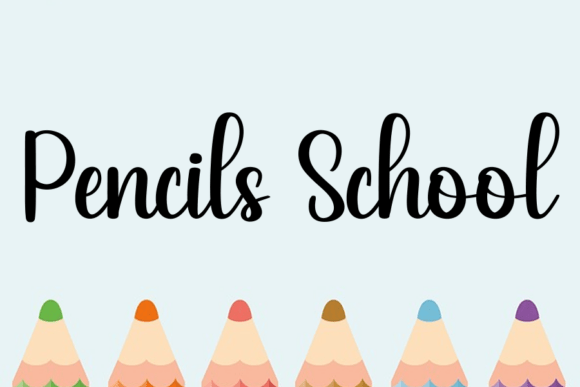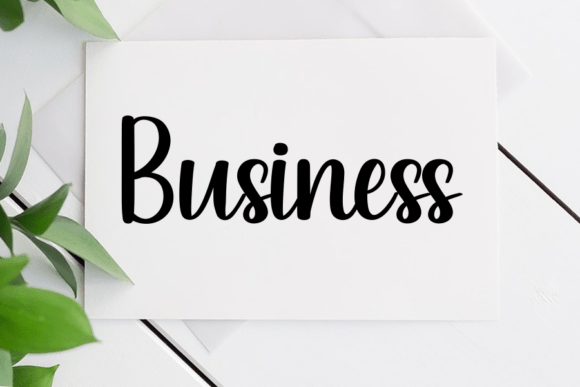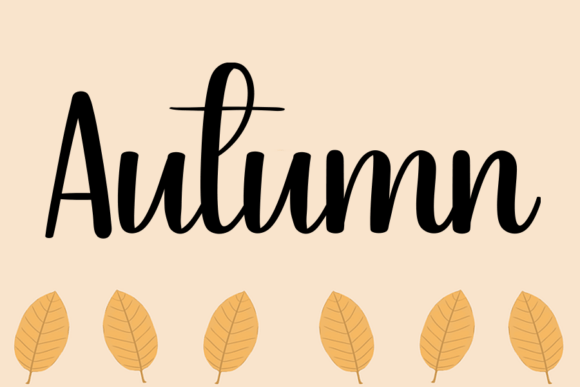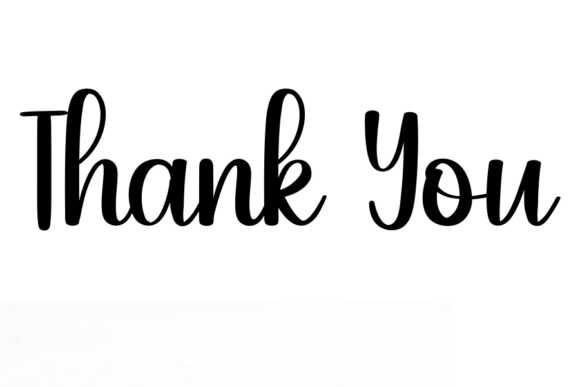
Introducing Badminton Font: The Sweet and Cursive Handwritten Font for Your Design Needs
Are you looking for a font that can add a touch of elegance and whimsy to your designs? Look no further than Badminton Font, a beautiful and cursive handwritten font that is perfect for a variety of design projects. With its gentle and sweet appearance, Badminton Font is sure to make your designs stand out and leave a lasting impression.
What Makes Badminton Font Special?
Badminton Font is a unique and versatile font that can be used for a wide range of design ideas. Its cursive and handwritten style gives it a personal and human touch, making it perfect for designs that require a touch of warmth and personality. Whether you’re working on a branding project, a wedding invitation, or a marketing promotion, Badminton Font is sure to add a joyful and romantic touch to your design.
Badminton Font is a versatile font that can be used for a variety of design projects, including:
- Branding: Use Badminton Font to create a unique and memorable brand identity that stands out from the crowd.
- Logo Design: Create a beautiful and elegant logo that showcases your brand’s personality and style.
- Wedding Things: Add a touch of romance and whimsy to your wedding invitations, stationery, and other wedding-related designs.
- Greeting Cards: Create beautiful and heartfelt greeting cards that are perfect for any occasion.
- Fashion: Use Badminton Font to create stunning fashion designs, lookbooks, and marketing promotions.
Why Choose Badminton Font?
There are many reasons why Badminton Font is a great choice for your design needs. Here are just a few:
- Elegant and Casual: Badminton Font has a unique and elegant style that is both sophisticated and casual.
- Easy to Read: The font is clear and easy to read, making it perfect for designs that require a lot of text.
- Highly Versatile: Badminton Font can be used for a wide range of design projects, from branding and logos to wedding invitations and greeting cards.
- Unique and Creative: With its cursive and handwritten style, Badminton Font is sure to add a touch of creativity and originality to your designs.
How to Use Badminton Font in Your Designs
Using Badminton Font in your designs is easy and straightforward. Here are a few tips to get you started:
- Pair it with Other Fonts: Badminton Font looks great when paired with other fonts, such as sans-serif fonts or script fonts.
- Use it for Headings and Titles: Badminton Font is perfect for headings and titles, where its elegant and cursive style can really shine.
- Experiment with Colors: Try using Badminton Font in different colors and combinations to add depth and interest to your designs.
In conclusion, Badminton Font is a beautiful and versatile font that is perfect for a wide range of design projects. With its elegant and cursive style, it’s sure to add a touch of whimsy and romance to your designs. Whether you’re a designer, crafty DIY enthusiast, or simply someone who loves working on creative projects, Badminton Font is a great choice for anyone looking to add a little something special to their designs.